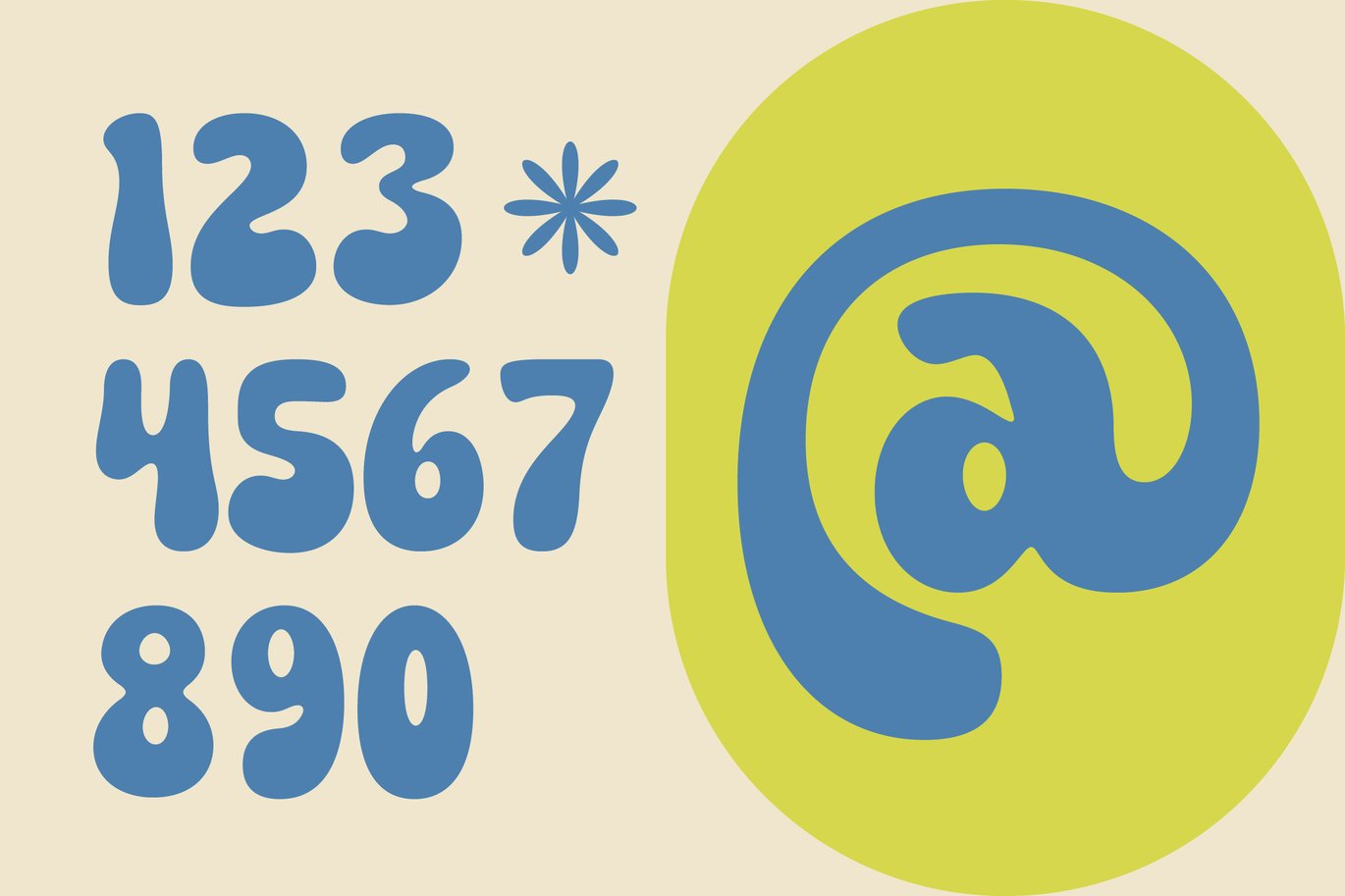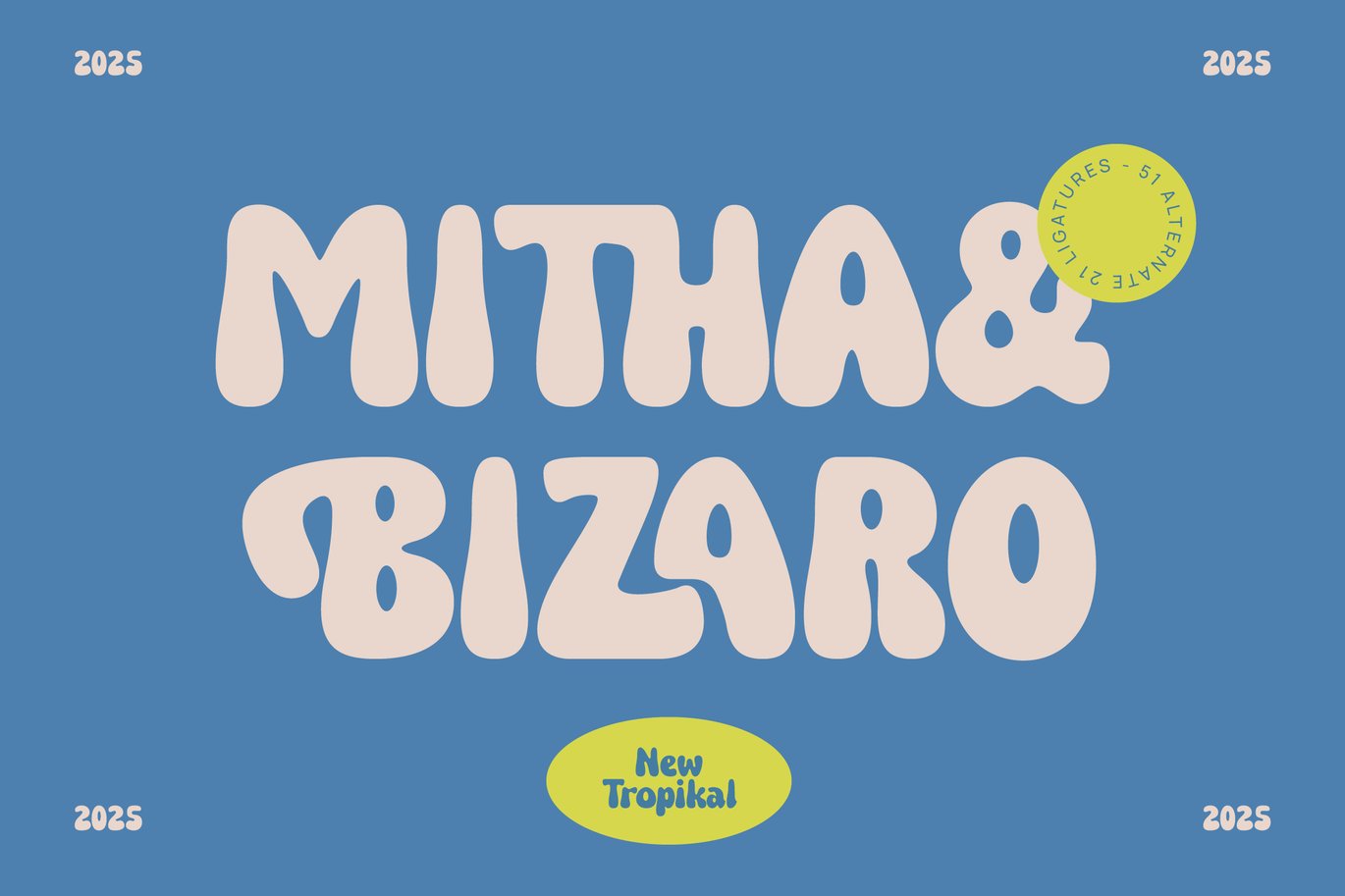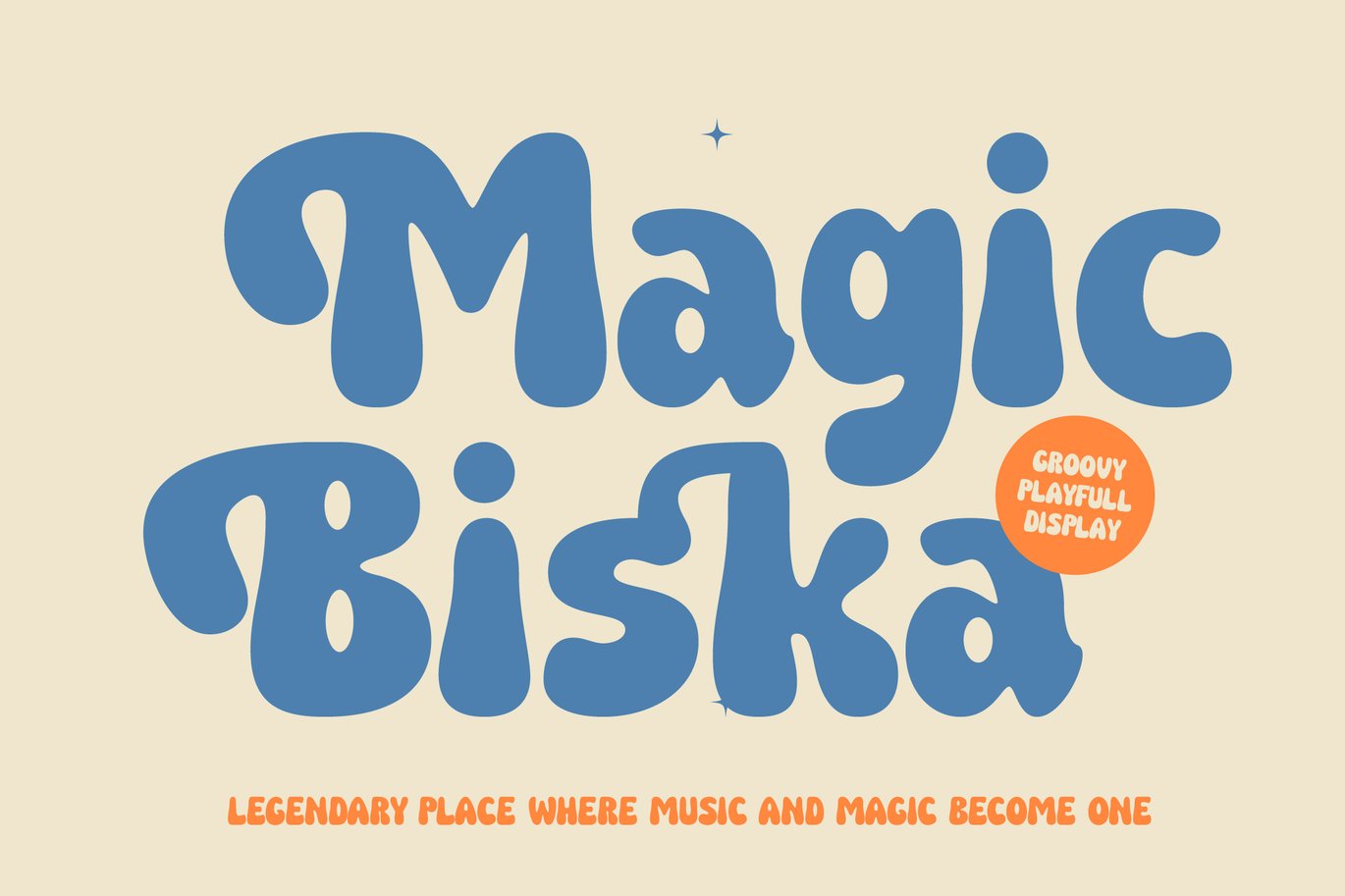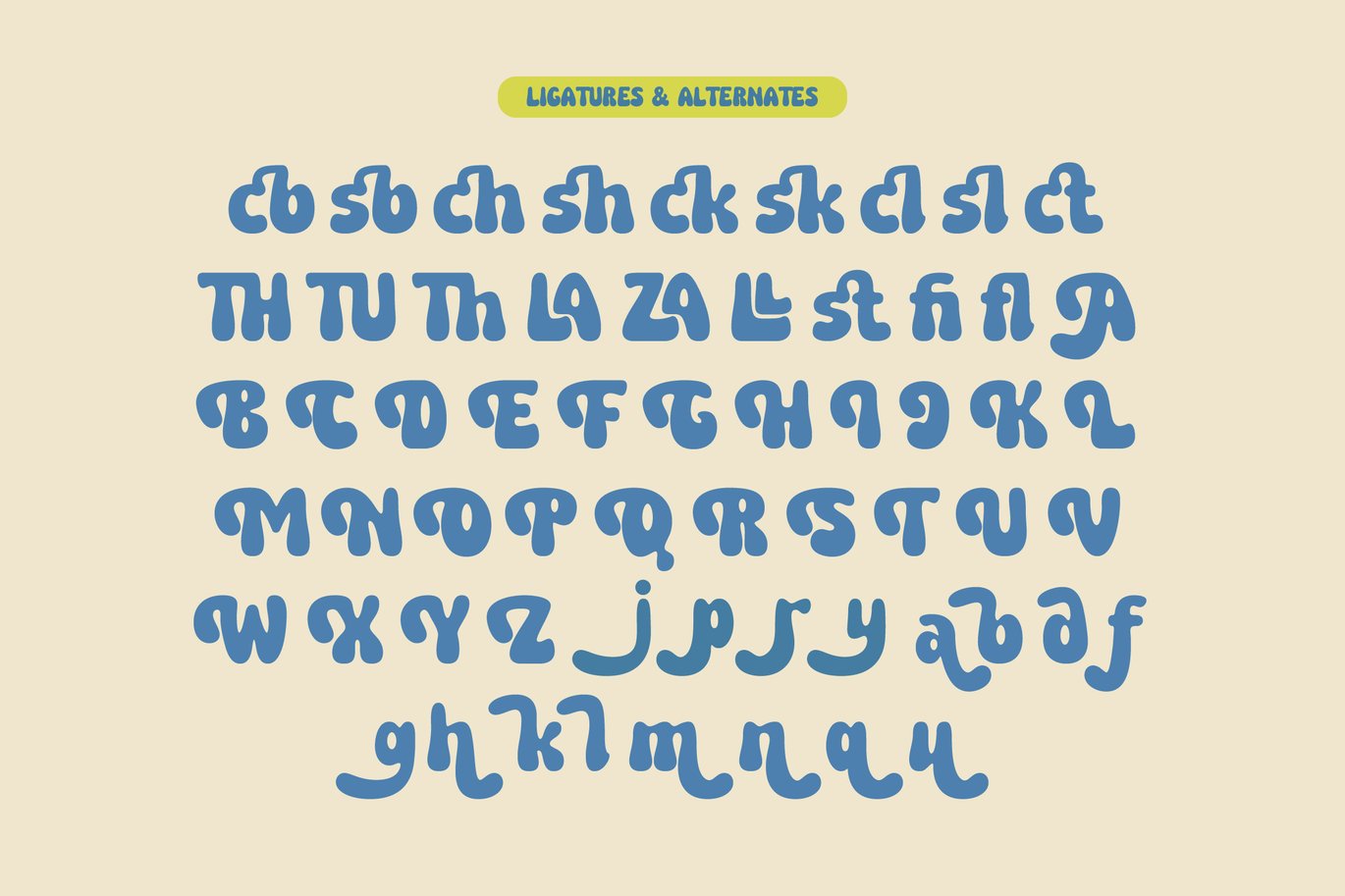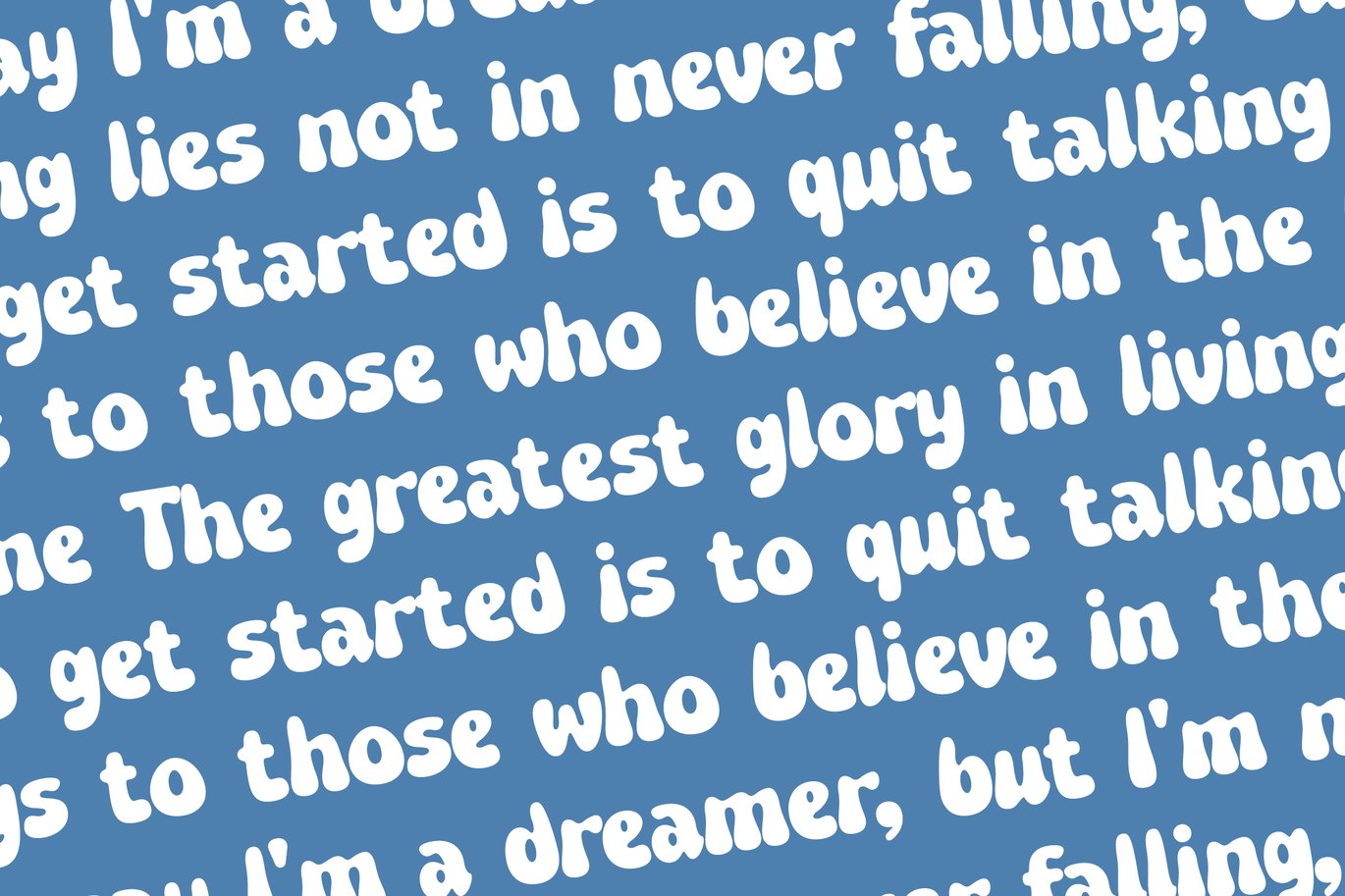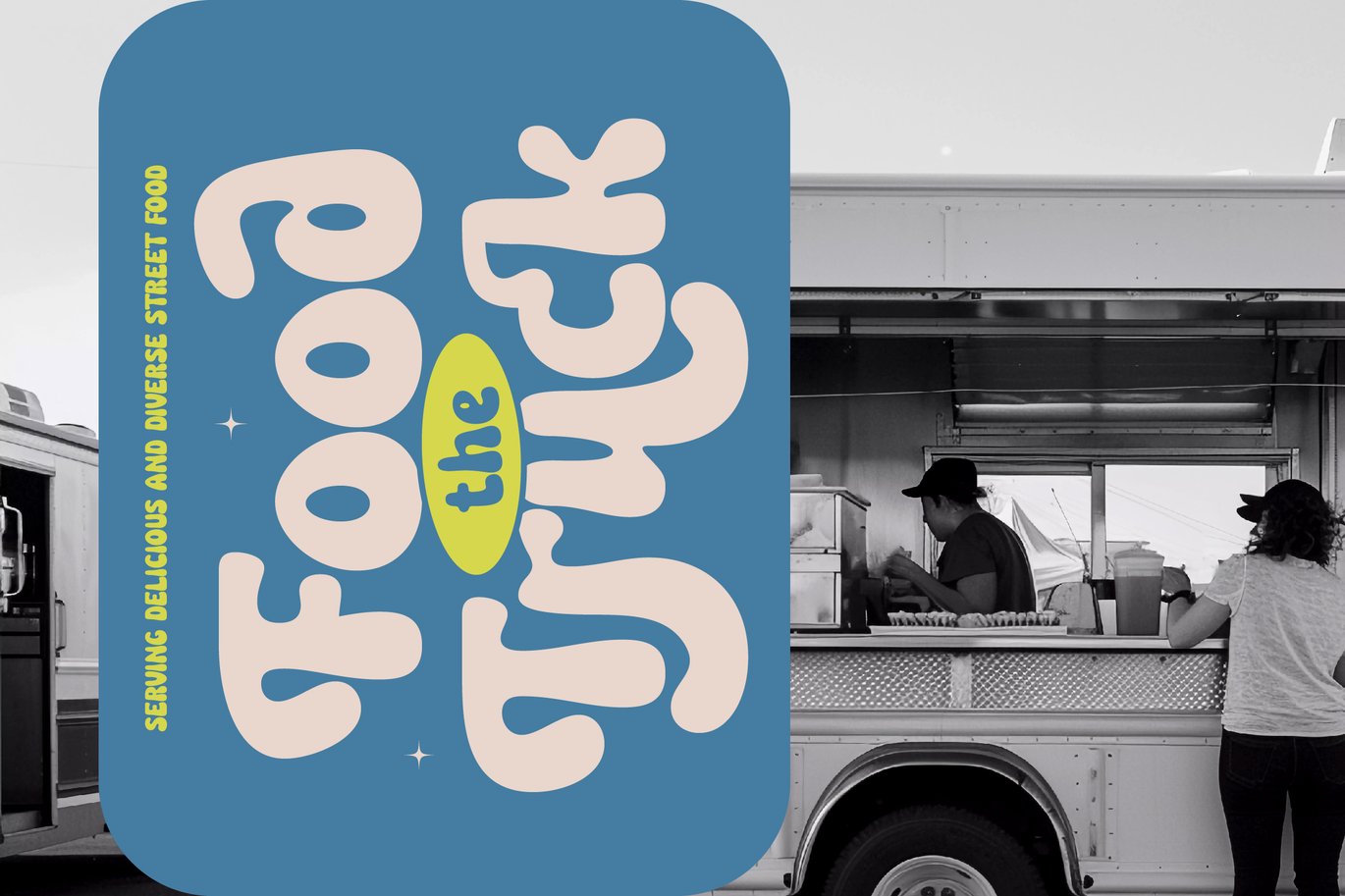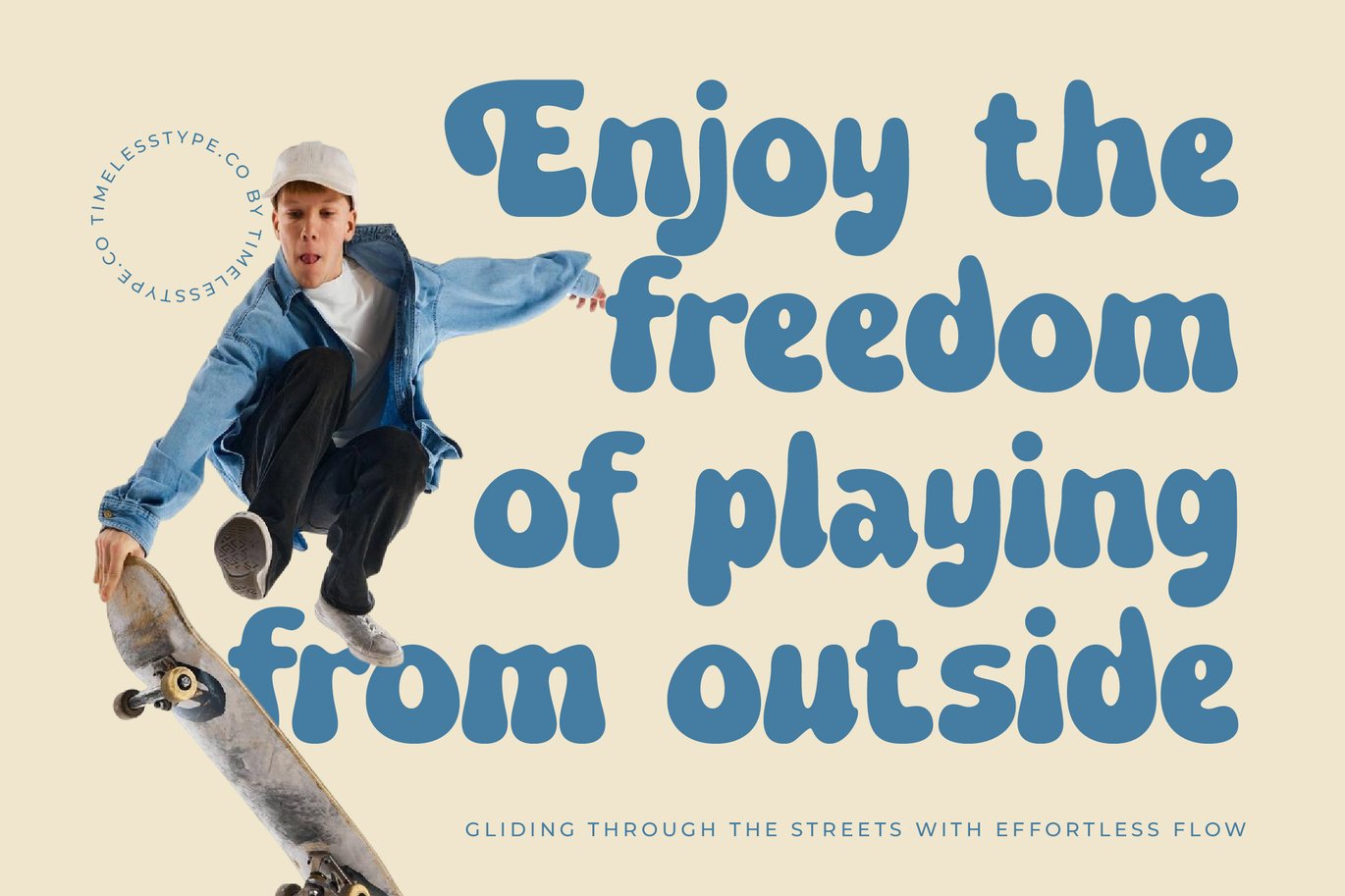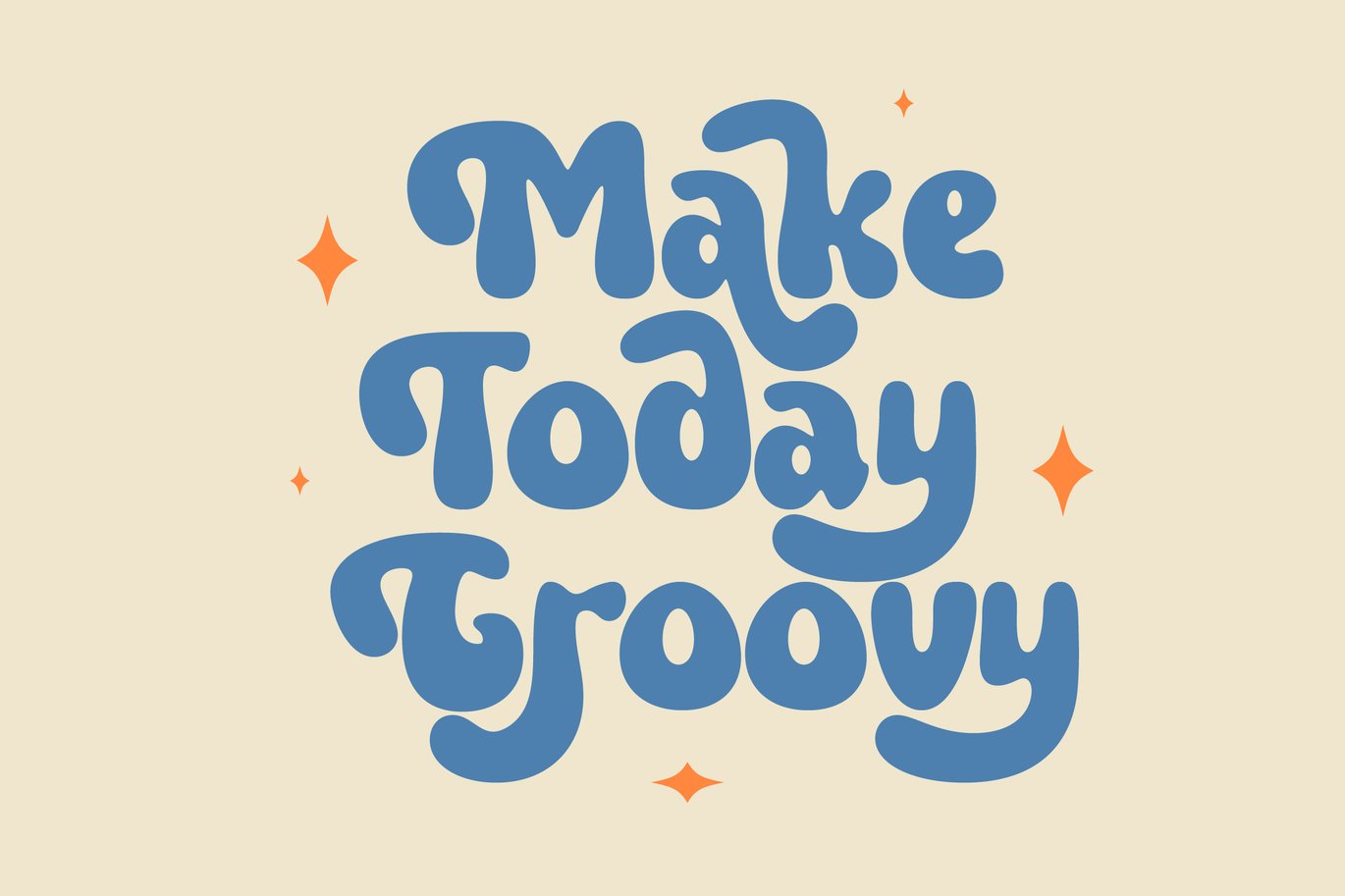
Queen Wosha - Groovy Playfull Display
Queen Wosha is a groovy and playful display font that brings a cheerful, retro-inspired personality to any design. Featuring 20 ligatures and 42 alternates, this bold and bubbly typeface is perfect for posters, children’s projects, branding, packaging, and social media graphics. With its soft curves and expressive letterforms, Queen Wosha adds a fun and friendly vibe that makes your designs stand out with creativity and charm.